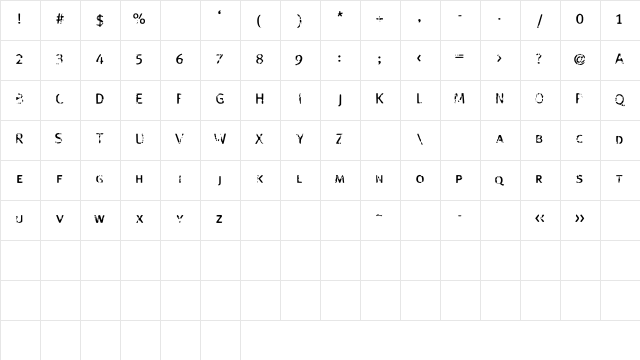
StrangeBoy Medium
Design Context for StrangeBoy Typeface
StrangeBoy is a composed and adaptable typeface that performs quietly and consistently across a wide range of design contexts.